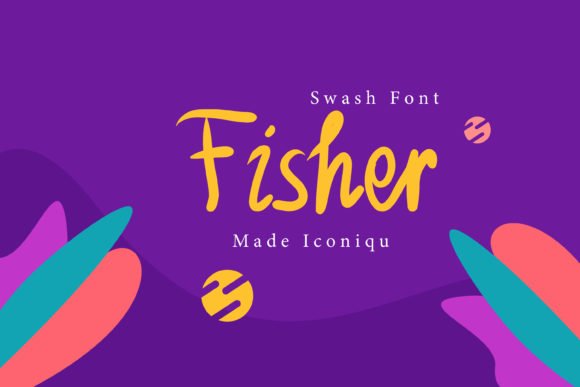
The Magic of Handwritten Fonts: Discovering the Fisher Font
Do you remember that moment when you stumbled upon a vintage store, and the handwritten signs on the shelves sparked a creative storm in your mind? The imperfections, the character, and the uniqueness of those signs inspired you to experiment with your own designs. That’s exactly what the Fisher Font is all about – bringing that same magic to your craft projects.
Designed to be simple and easy to use, the Fisher Font is perfect for adding a personal touch to your artwork, journaling, or even invitations. With its unique, handwritten style, you can mix and match it with various craft designs to create something truly special. Whether you’re a seasoned designer or a crafty enthusiast, the Fisher Font is a valuable addition to your creative toolkit.
Fisher Font Key Features
- Unique Characteristics: Designed with a modern, cursive feel and comes with 6 different font weights, including Light, Regular, Medium, Bold, Heavy, and Black
Fisher Font Review
I recently had the chance to work with the Fisher Font, and I must say it’s a solid choice for body text and titles. The ✨ rounded edges and friendly feel make it perfect for creating a welcoming atmosphere in your designs.
The font’s versatility shines through in its ✨ multiple weights, from light to bold, which allows for a lot of creative freedom when it comes to typography. It’s also highly legible, making it an excellent choice for both digital and print materials.
While the Fisher Font is a great all-around choice, I did encounter a few limitations that might be worth considering. ⚠️ The font’s rounded edges can sometimes make it difficult to read in small sizes, especially in formal or professional contexts. Additionally, the font’s weight progression can feel a bit abrupt, which may not be ideal for designers who prefer a more subtle gradient.
In conclusion, the Fisher Font is a great choice for designers looking for a friendly, approachable font that’s easy to read and versatile. While it may have a few limitations, it’s definitely worth considering for your next project.
Design Considerations
- Use for body text and titles
- Best for digital and print materials
- Pair with sans-serif fonts for contrast
- Avoid using in formal or professional contexts
Fisher Font Practical Application Guide
The Fisher font is a great choice for creating a modern and minimalist look.
Use it for titles, headings, and body text to create a consistent and cohesive design.
It’s also a great font for creating social media graphics, posters, and flyers.